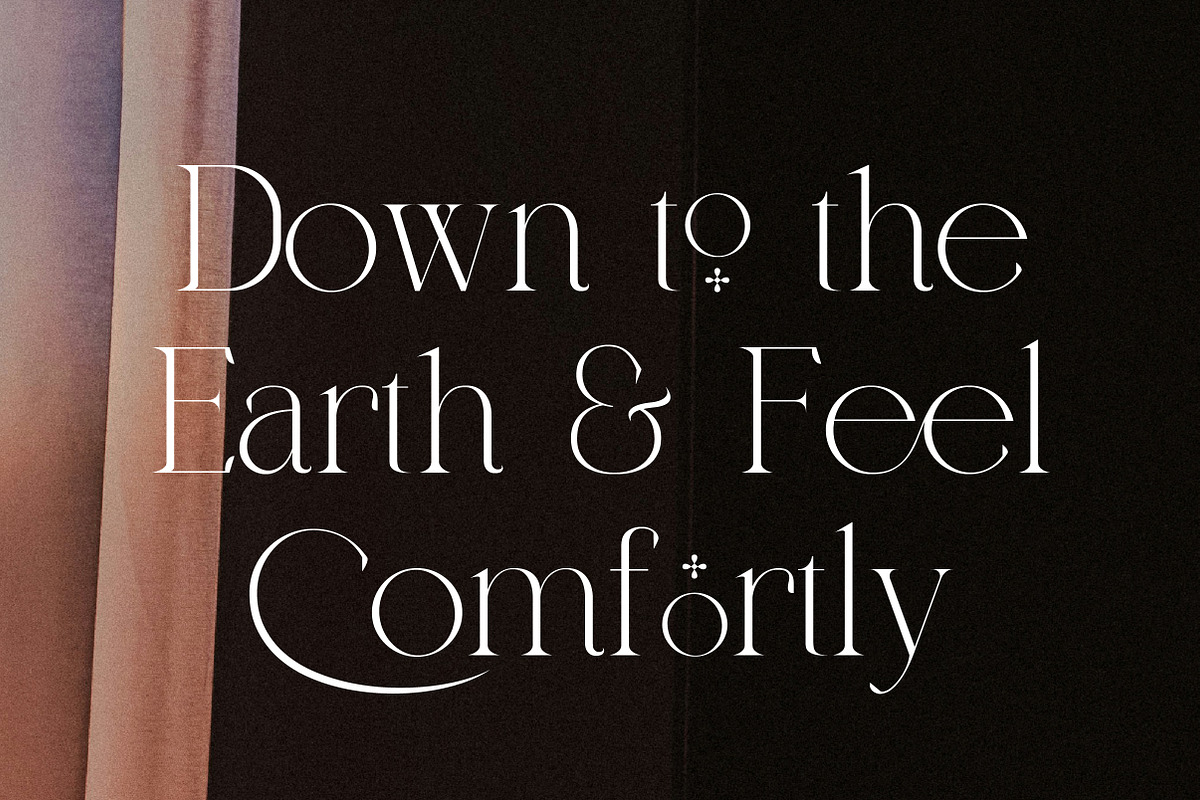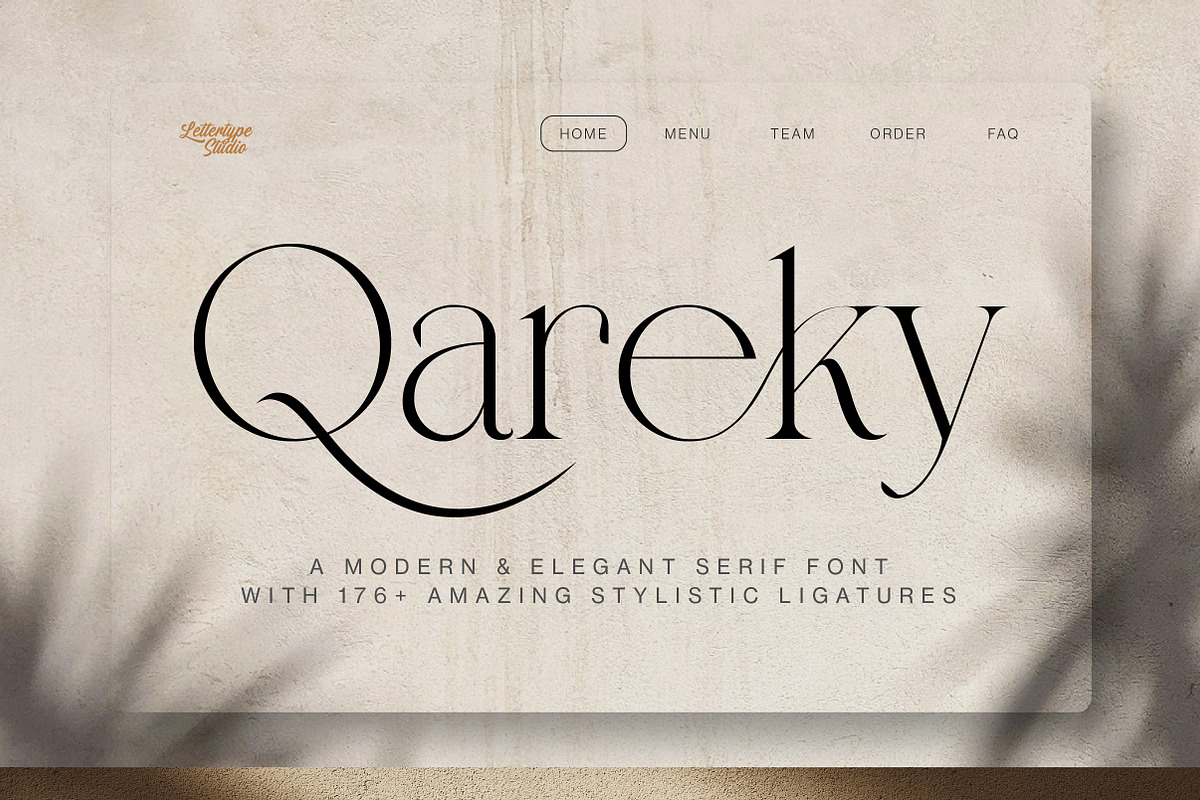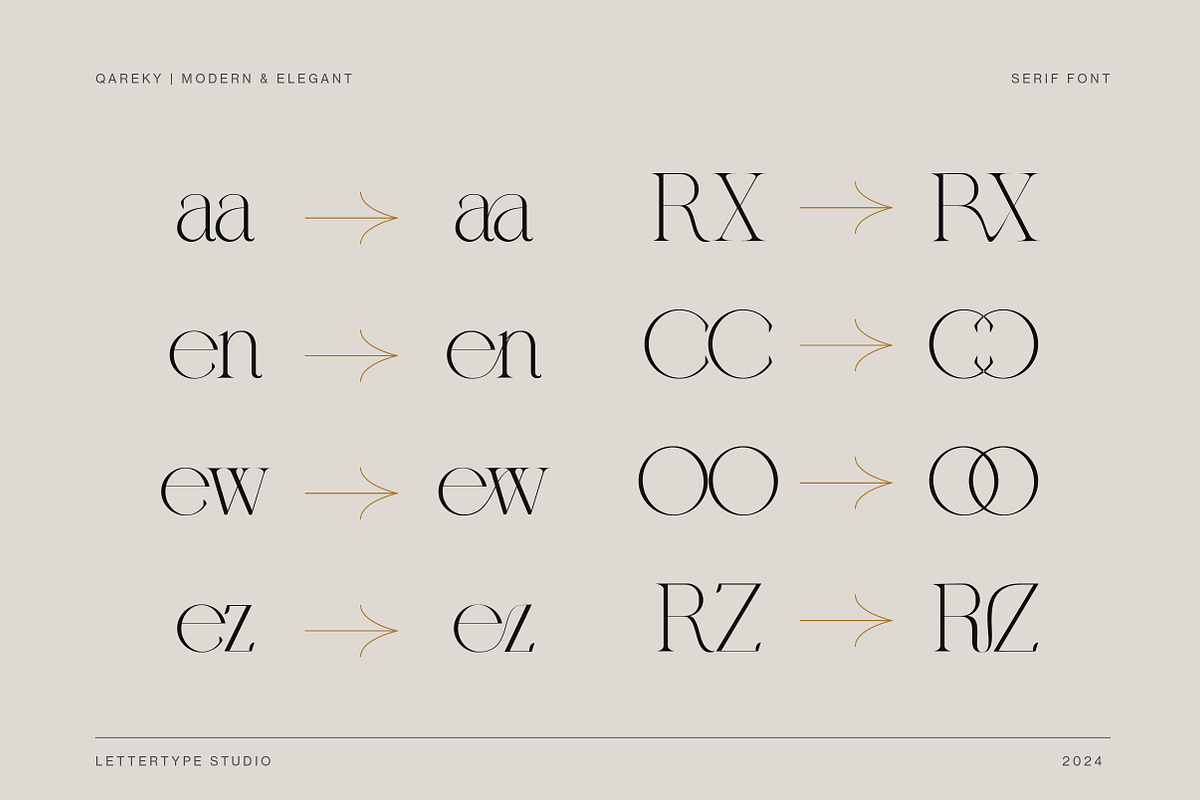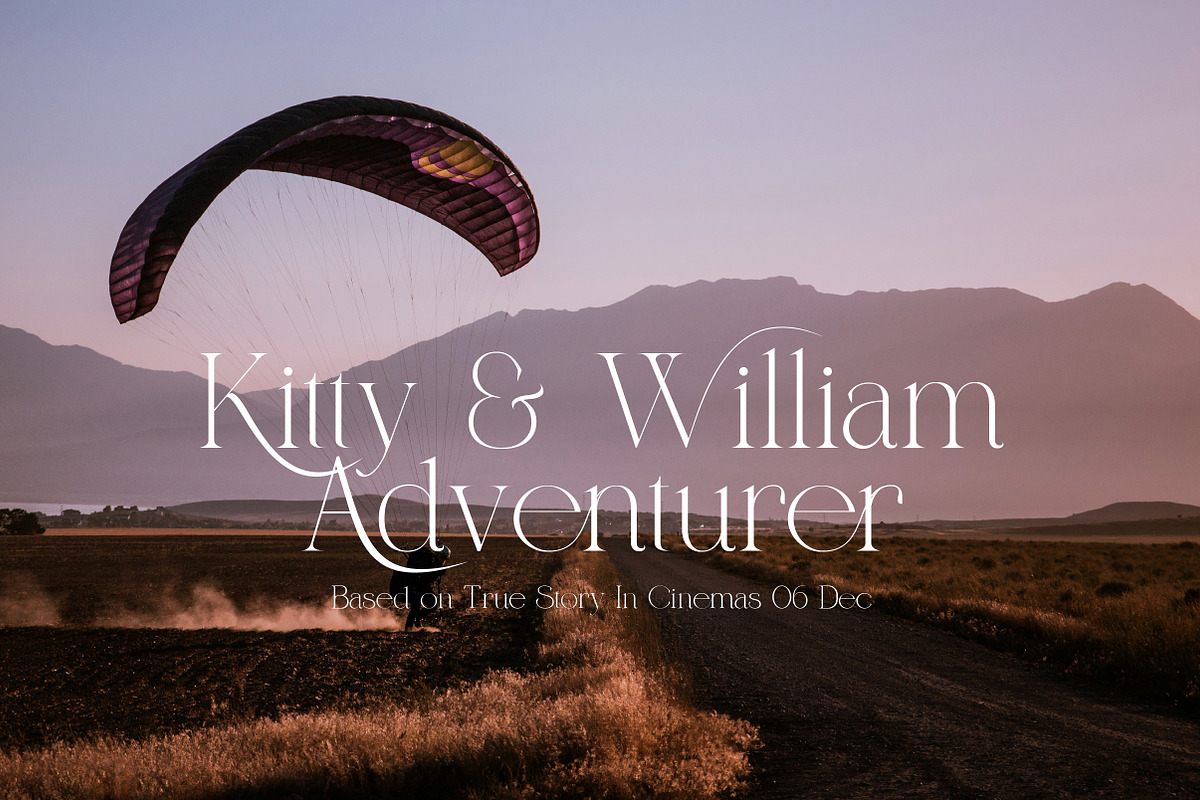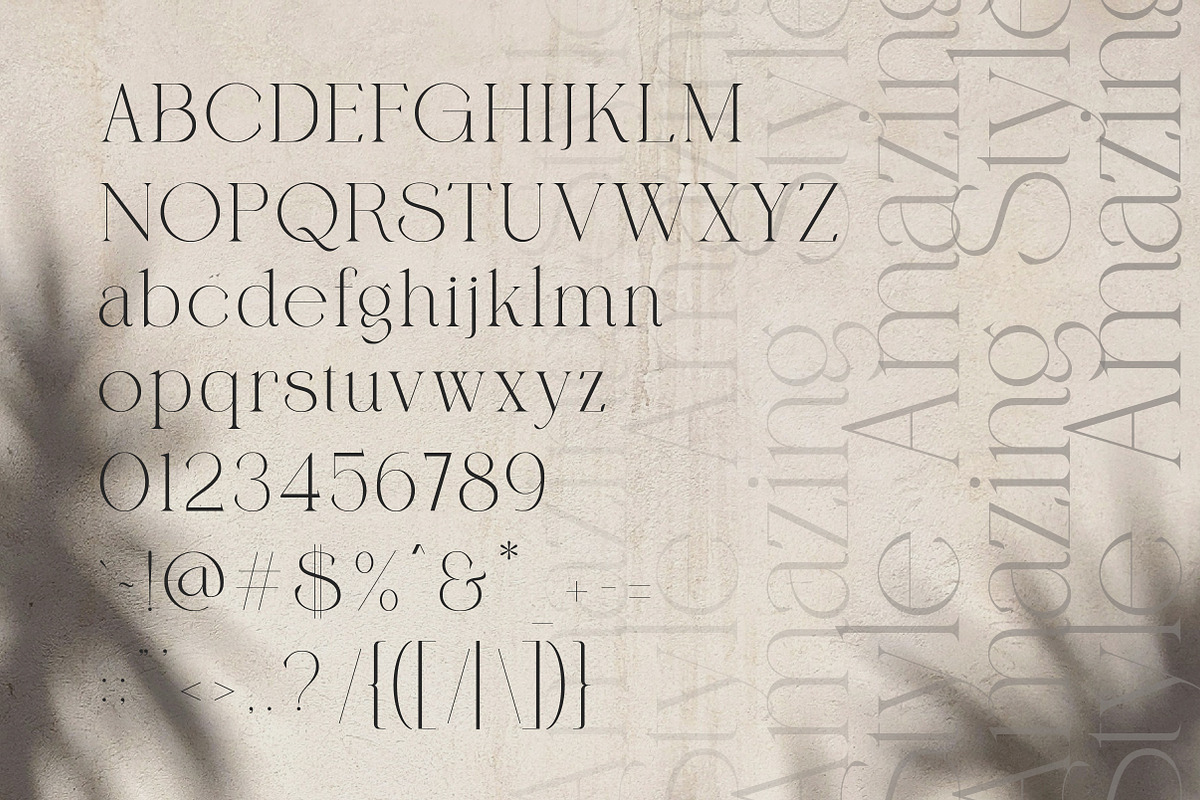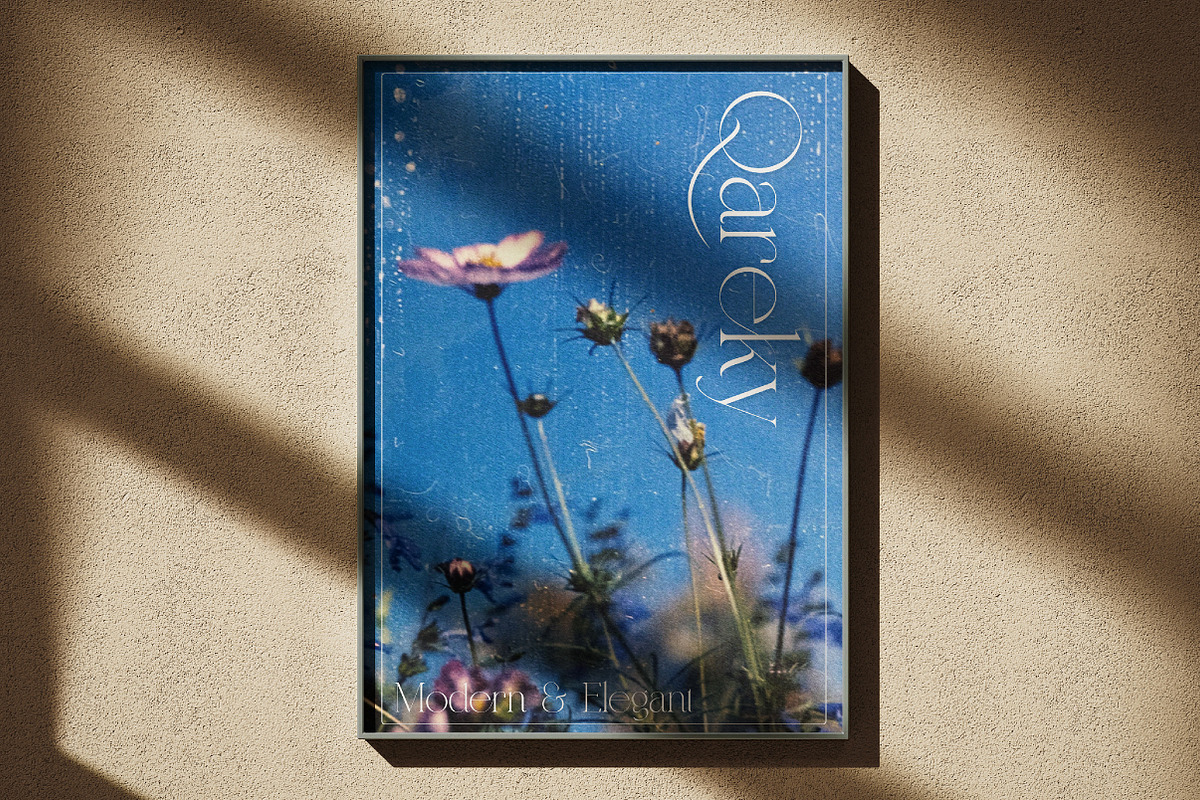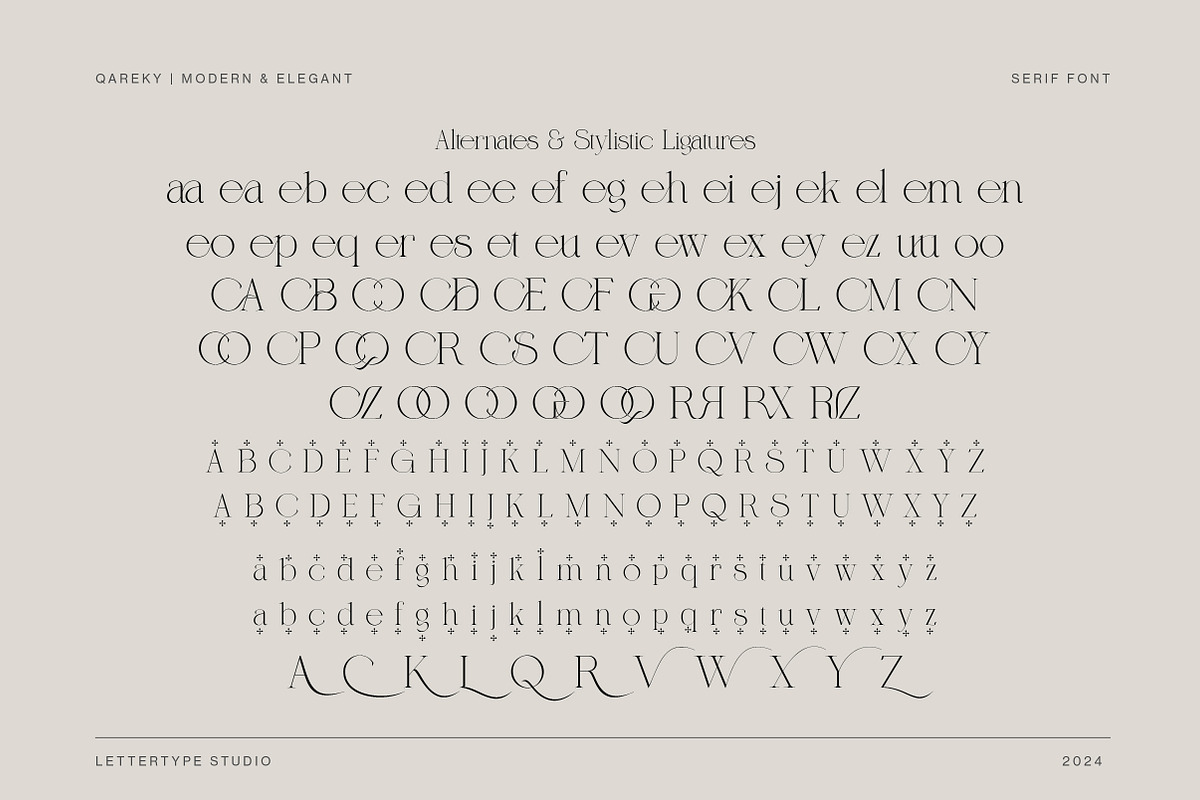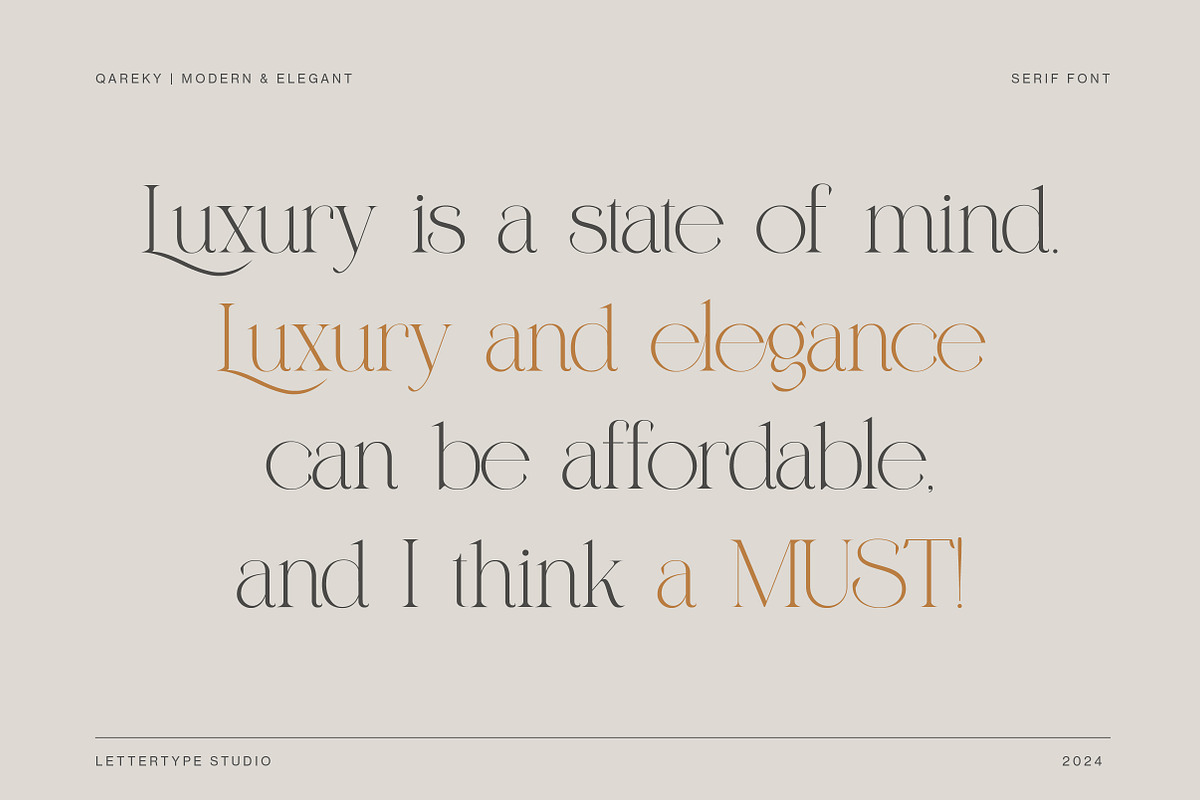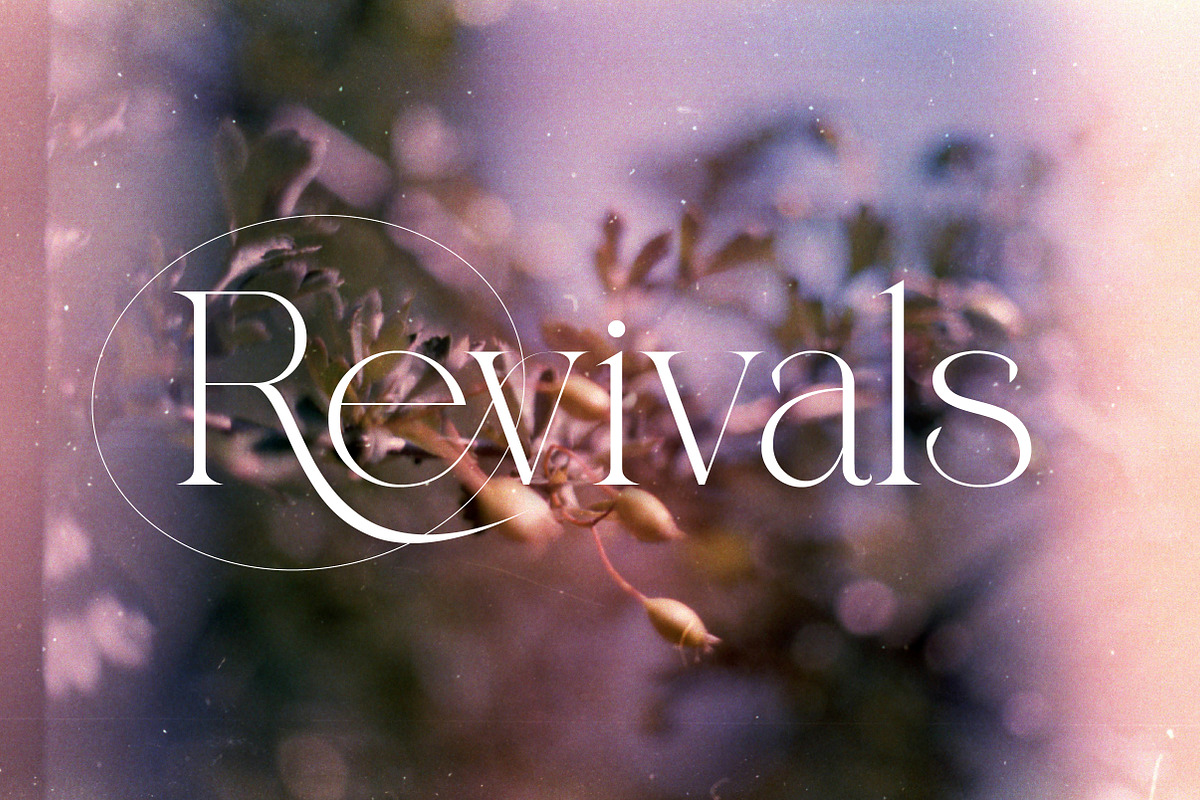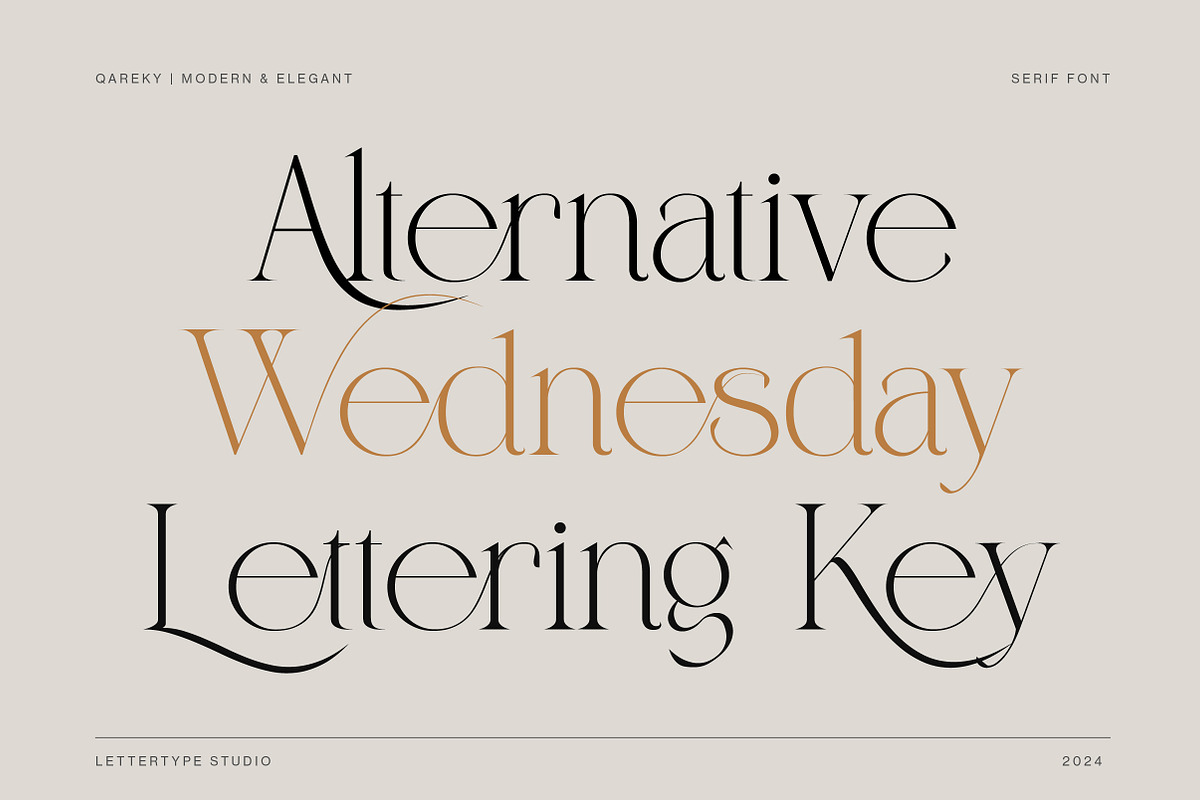
Qareky a Modern & Elegant Serif
Qareky is a modern and elegant chic serif font with a classic style inspired by 18th-century typography. Perfect for sophisticated branding, editorial design, web typography, and more. These fonts offer timeless appeal with clean lines, geometric and luxurious details, ensuring your projects stand out with elegance and style. Ideal for designers seeking versatility and refinement in their typography choices.
Qareky font family offering multiple styles and multilingual support, elevates your digital and print creations with a unique modern and vintage flair. This font works in large and small sizes and includes 18 styles normal & italic. Featuring 120+ unique ligatures, multilingual support, and various weights.
Qareky Features:
- Lowercase & Uppercase
- Alternates & Ligature
- Luxury branding, packaging & high-end editorial design
- Fashion campaigns, magazines & lookbooks
- Wedding stationery, invitations & logo design
- Elegant web typography & premium product labels
- Timeless projects that balance modern and classic beauty